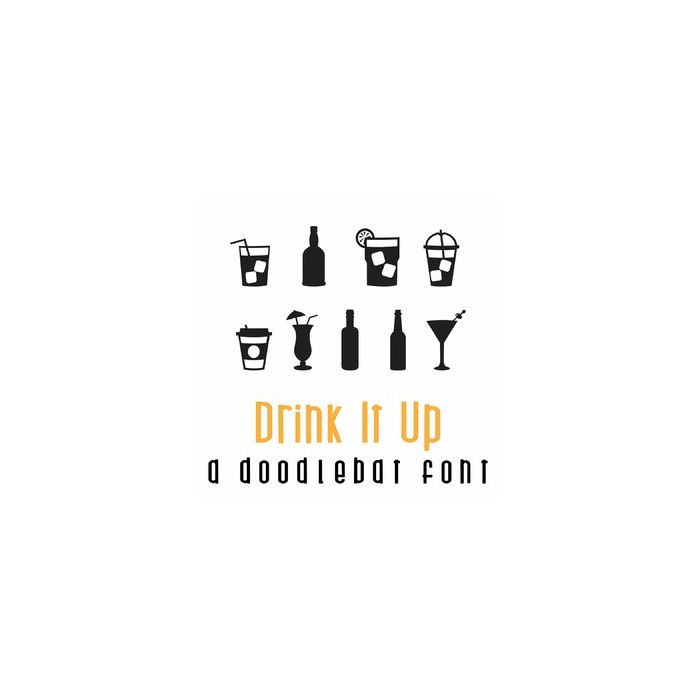
This fun doodlebat font features 26 cocktail-inspired silhouette style images. Perfect for cards, crafts, gifts, decor, scrapbook pages, planner stickers and more!